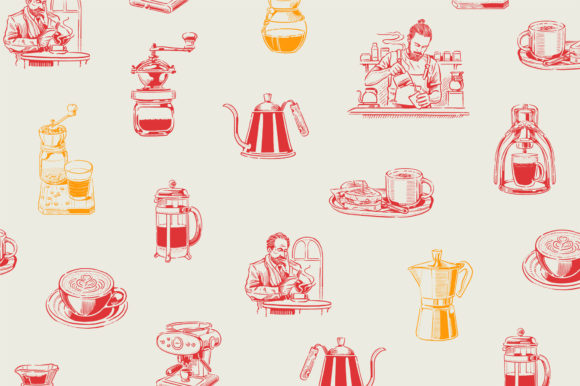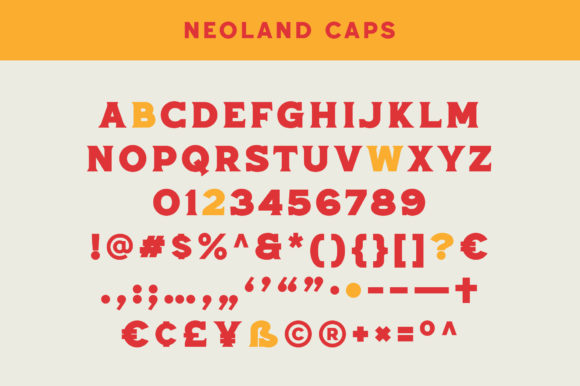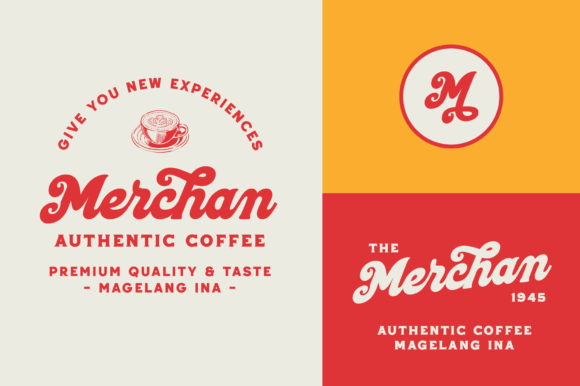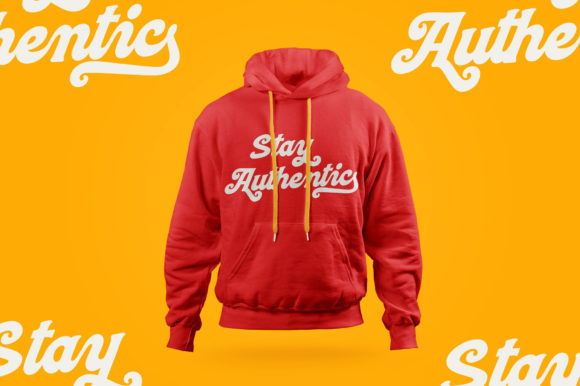
About Neoland Font
Neoland is a gorgeous and bold trio font (script, display, dingbats), crafted to give your headlines and logotype projects a stylish touch. This font reads as strong, confident, and dynamic and can add tons of nostalgic character to your designs.